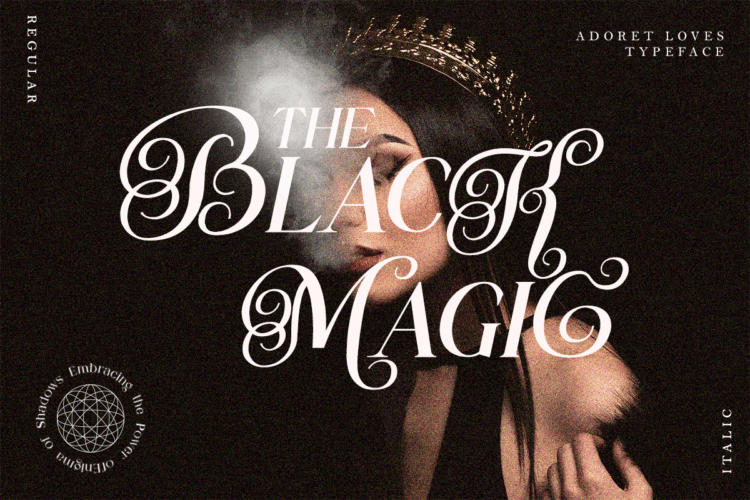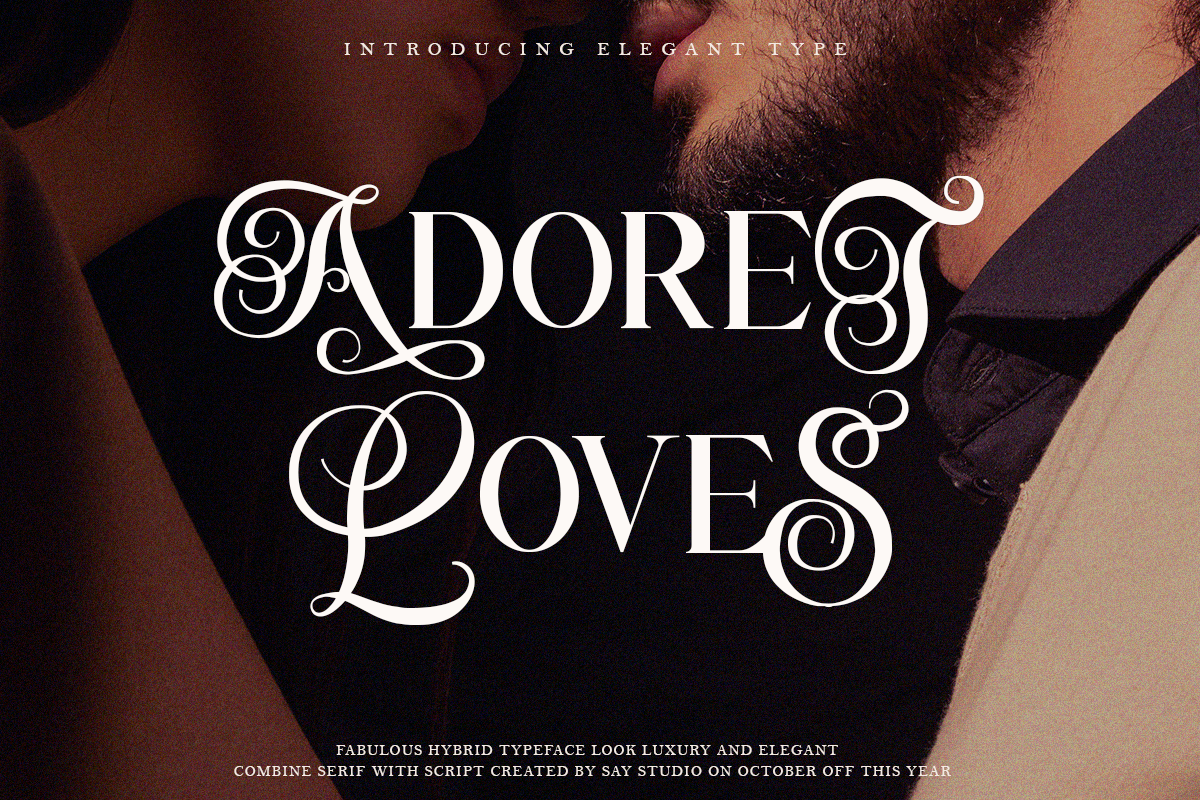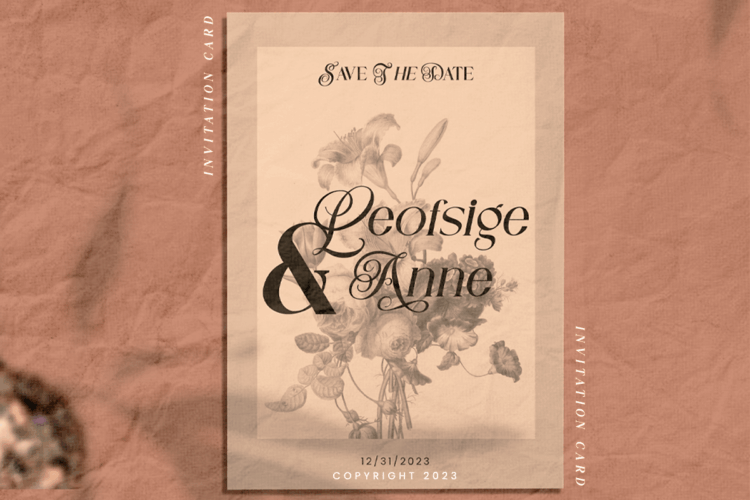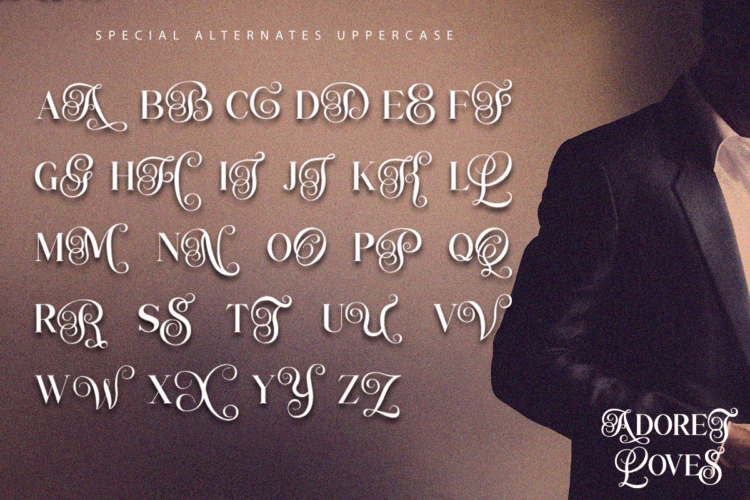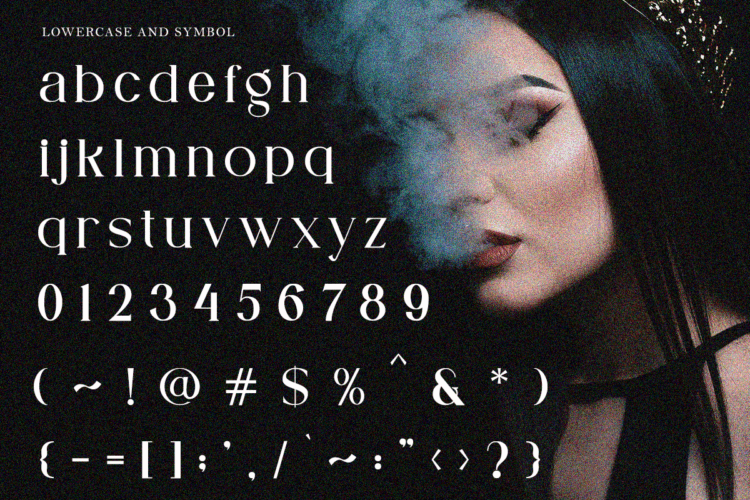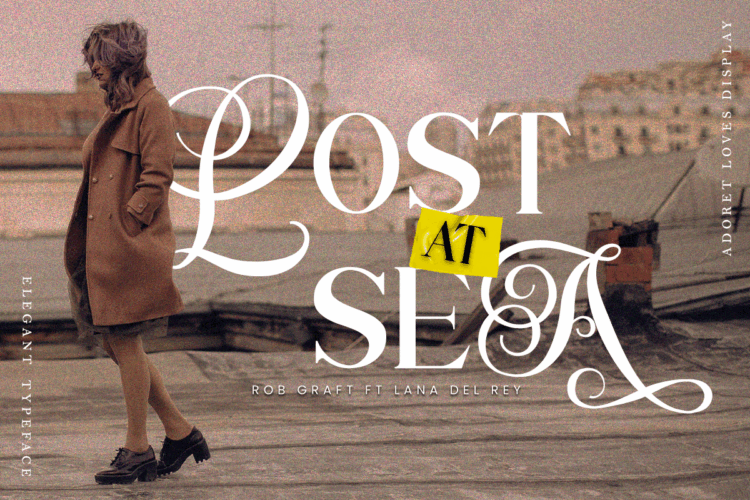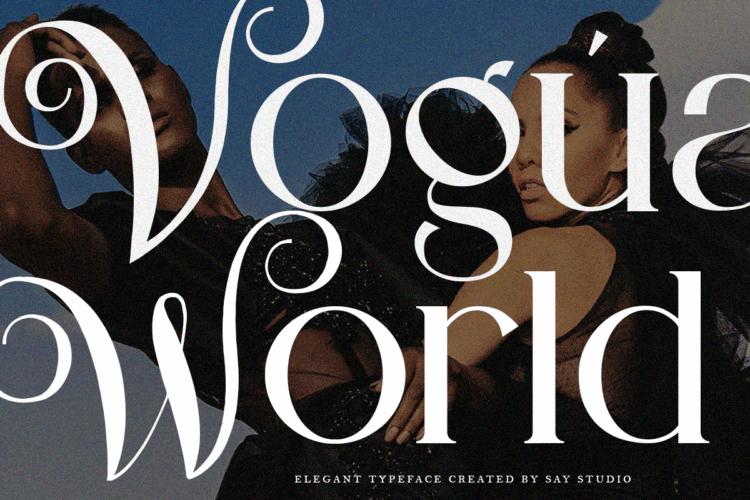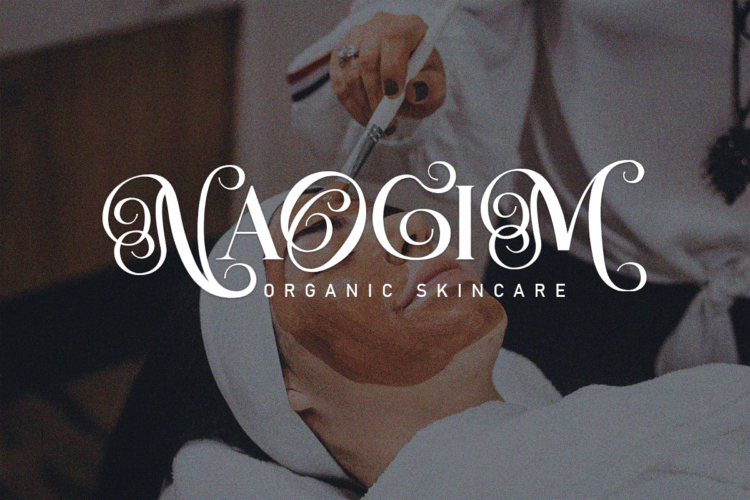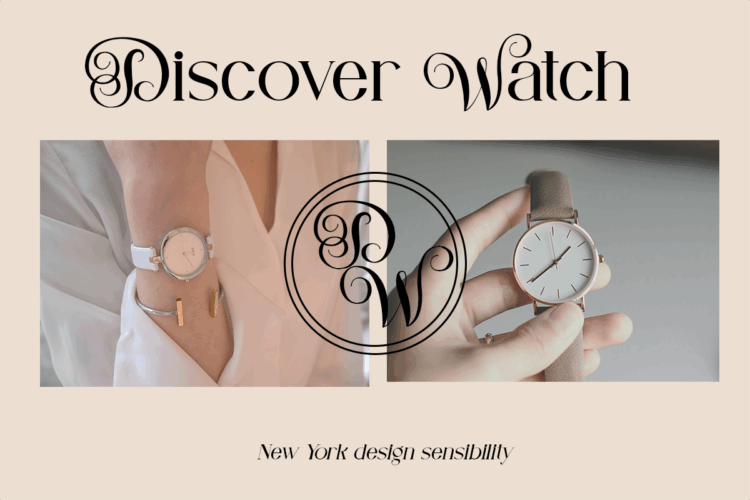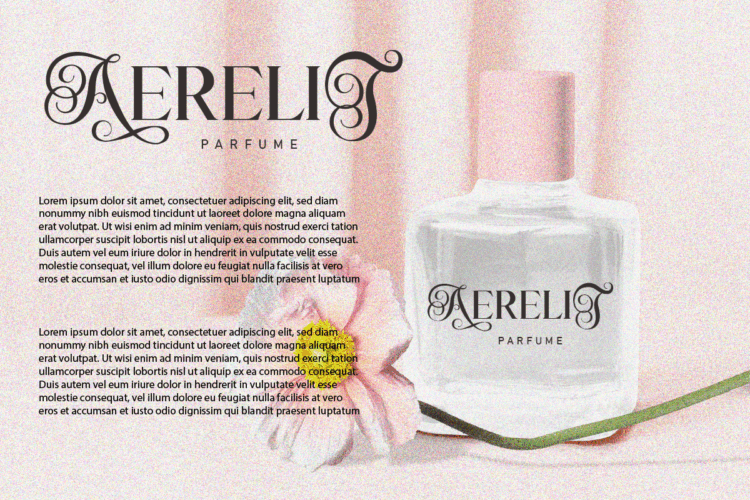
Adoret Loves – Elegant Serif Font
Adoret Loves is made mainly for headlines, titles, and other short texts and is well-suited for advertising, vintage mood board, branding, logotypes, packaging, titles, editorial design, modern logos, websites, social media quotes, wedding branding, modern and vintage design.